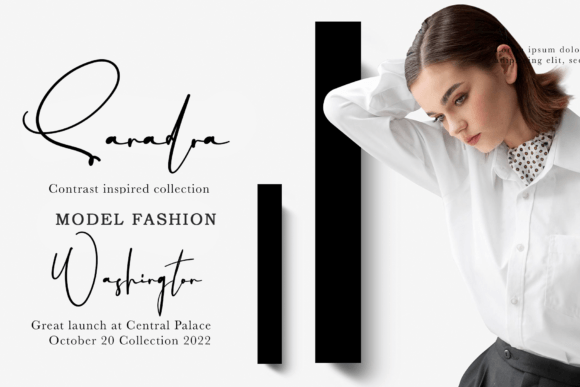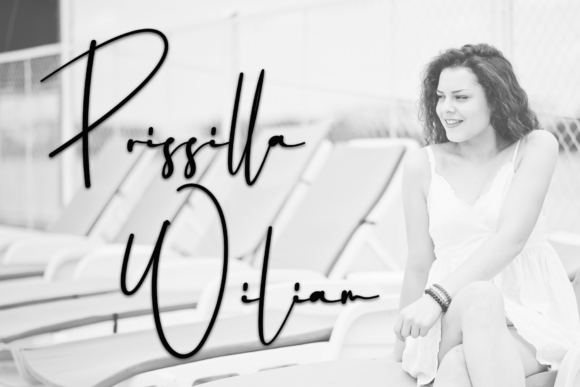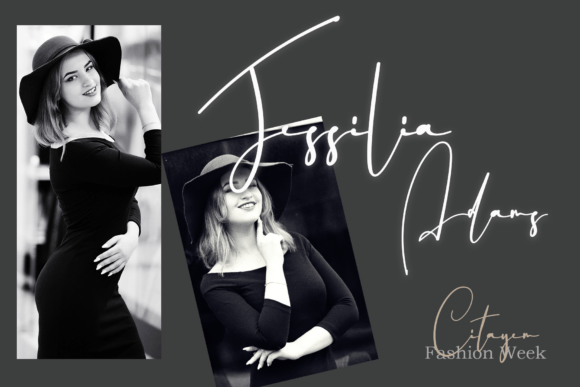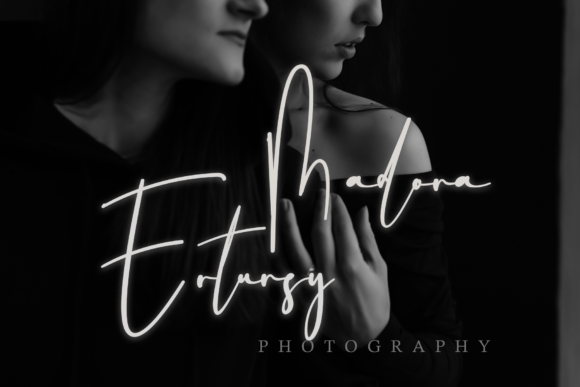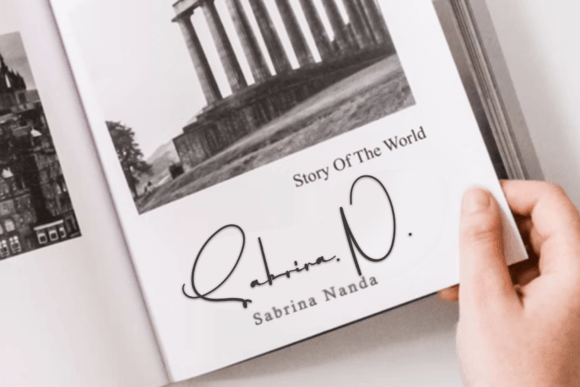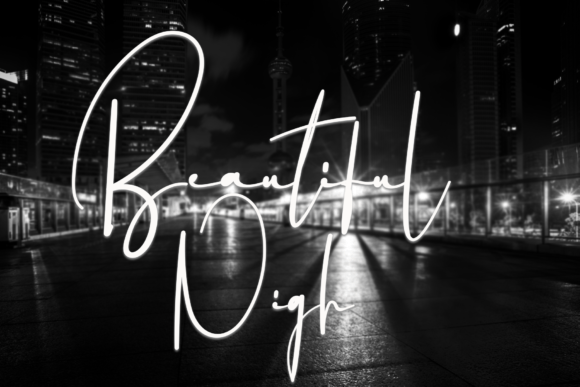
Introduction to Sandwins Font
sandwins is a unique, round lettered handwritten font that was carefully crafted to produce the desired results.
This font can be used to write titles, invitations, letters, and many other types of products .
Key Features of Sandwins Font